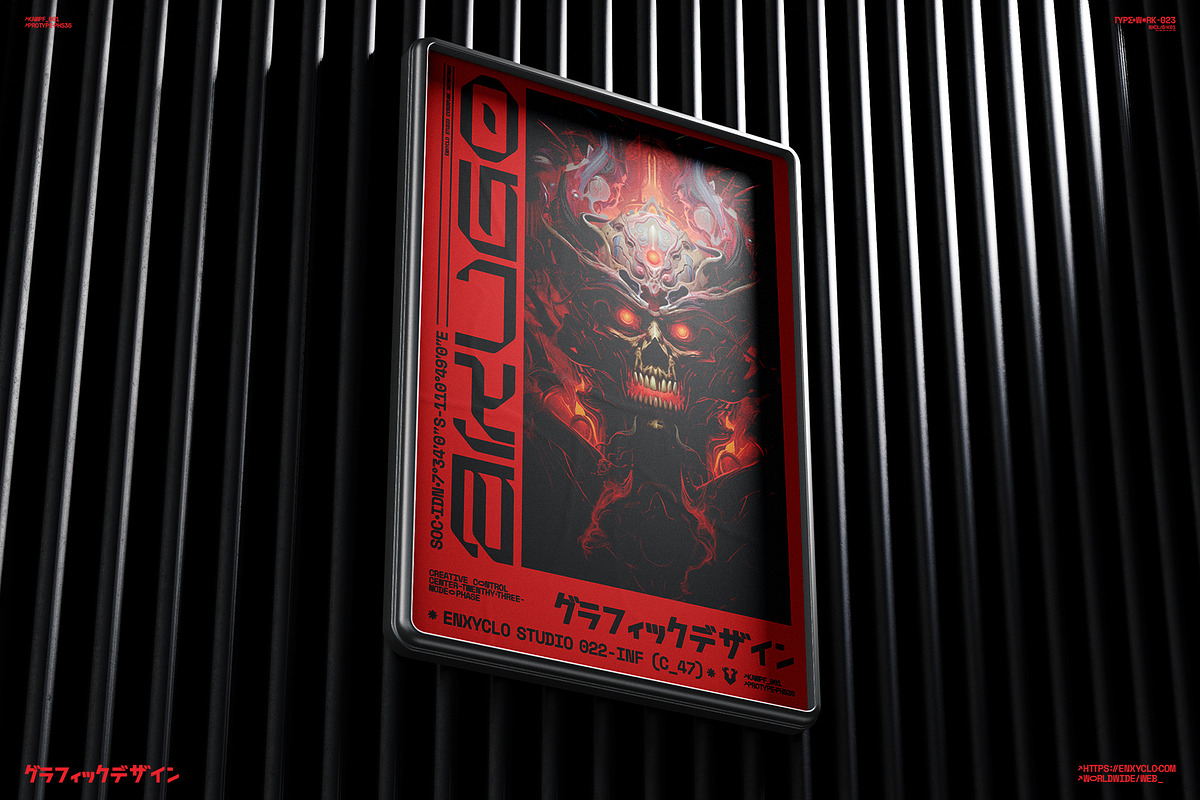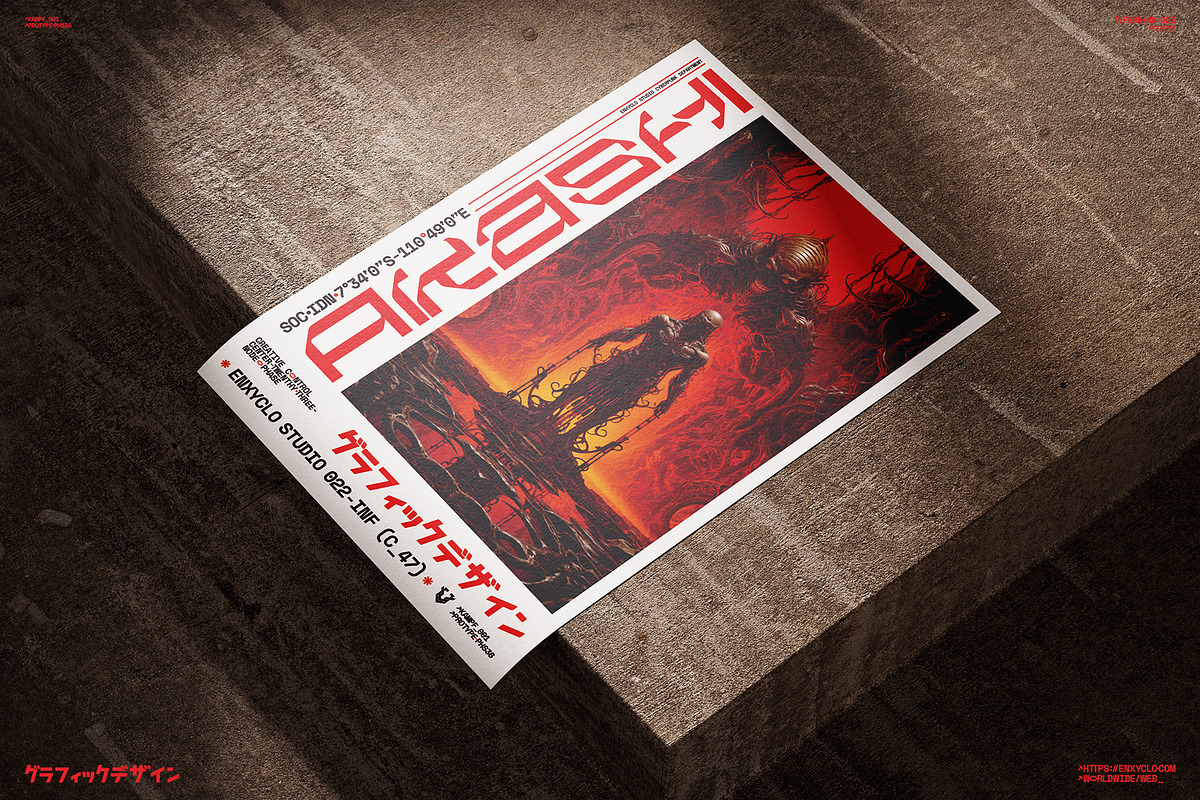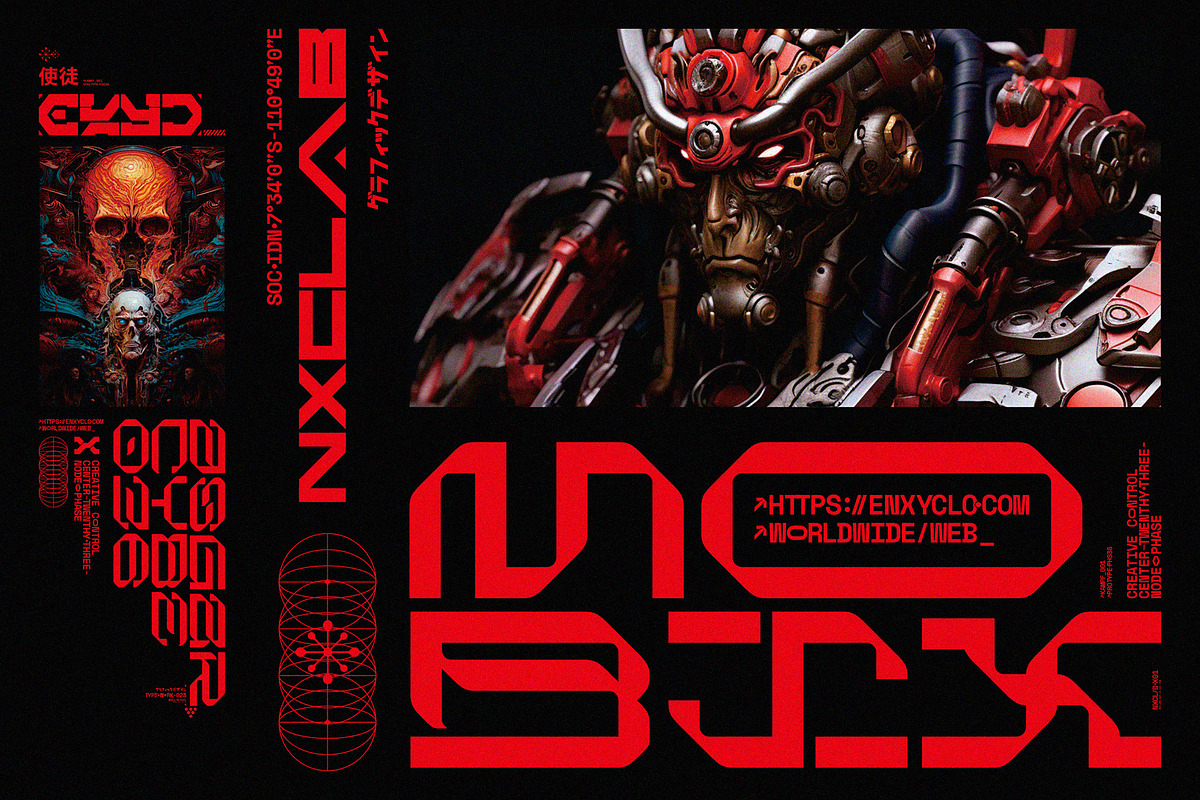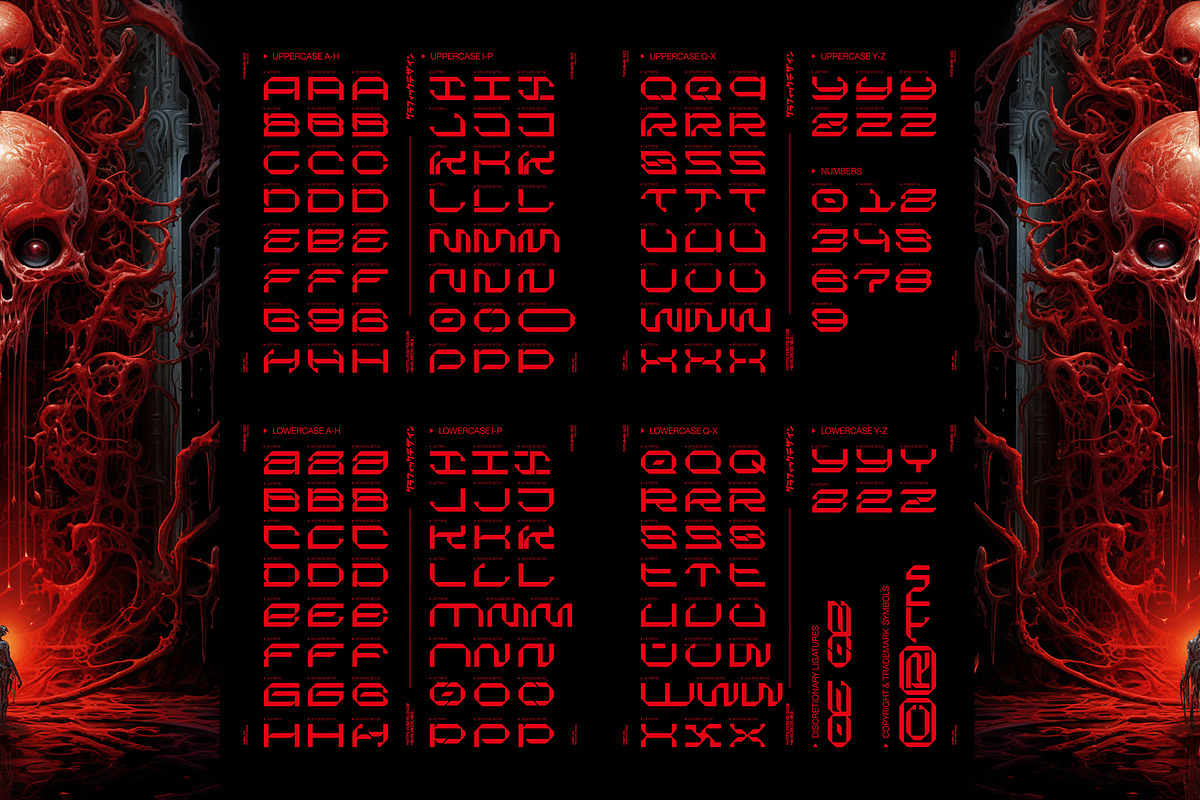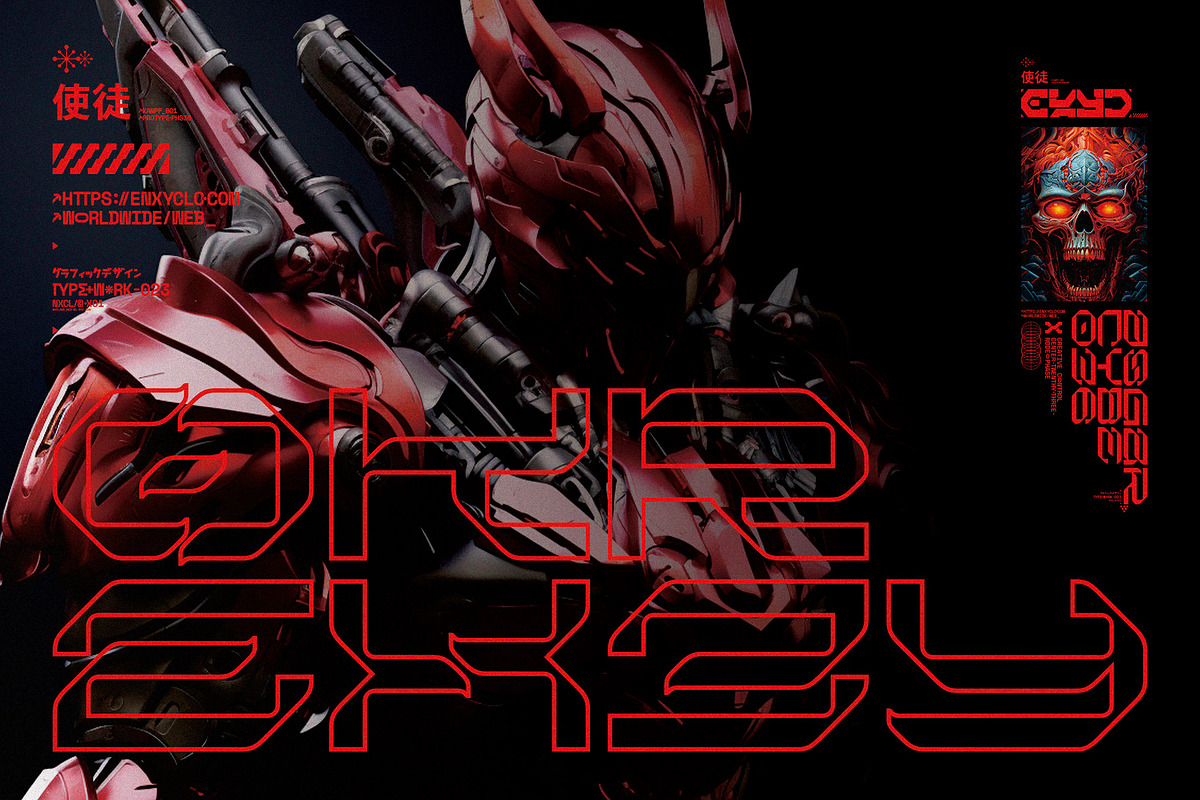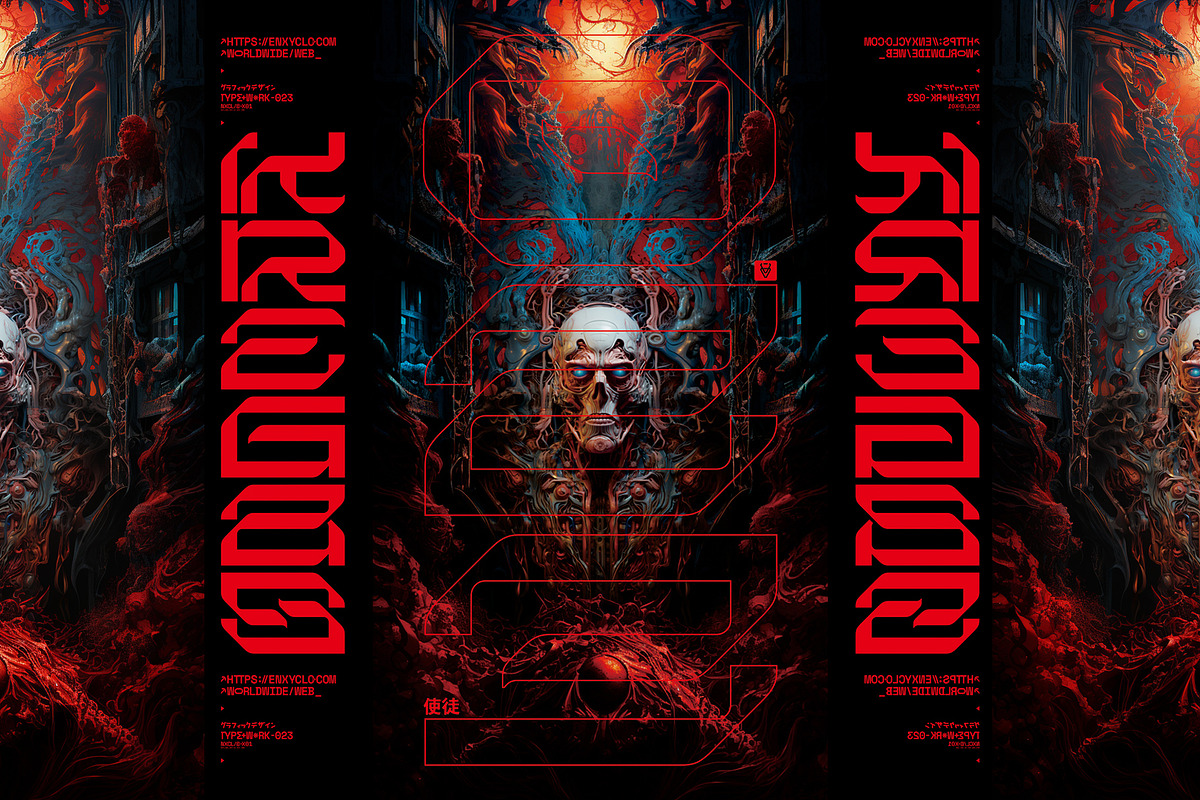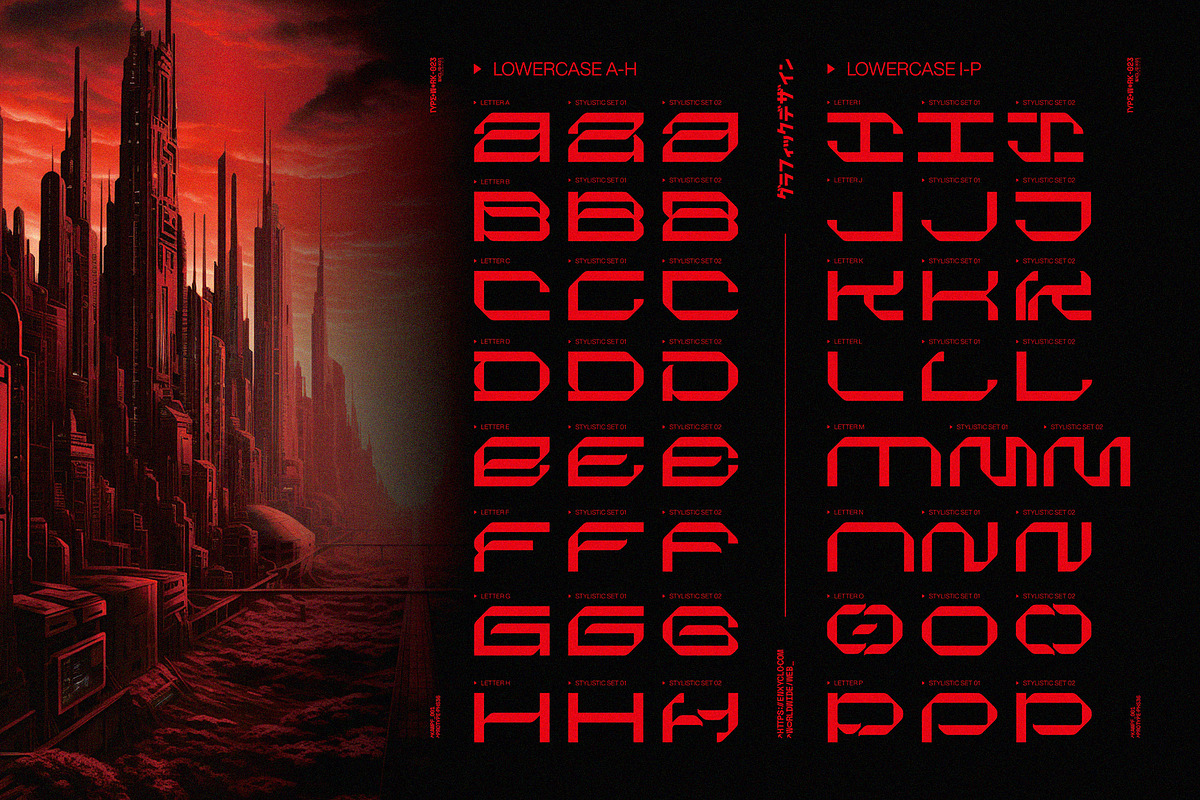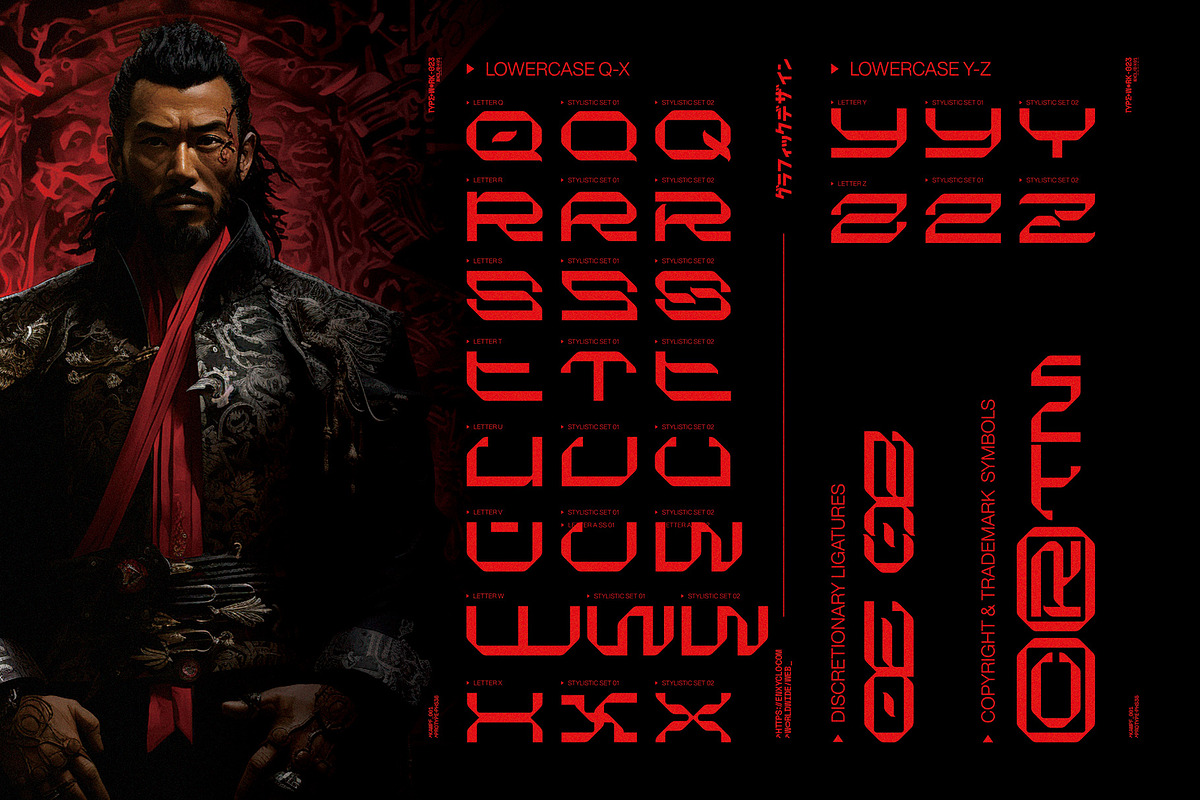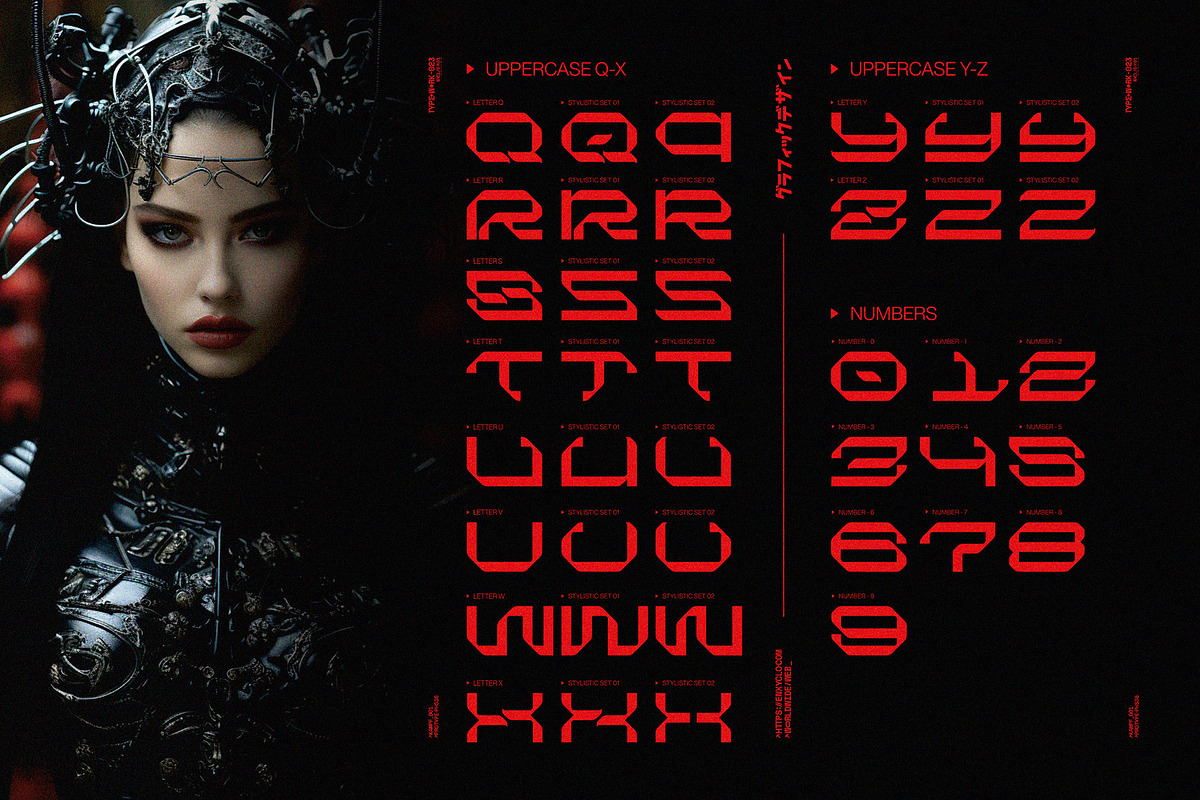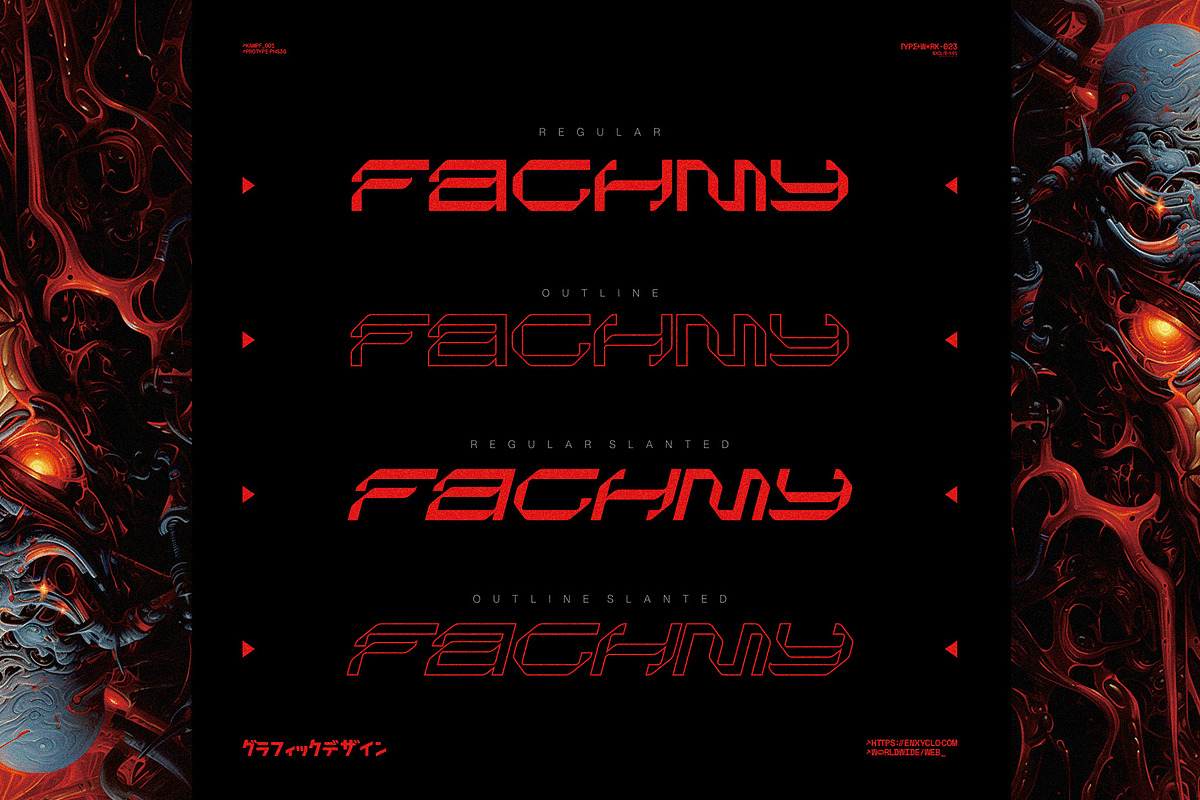
NCL KREGAS - Cyberpunk Futuristic
NCL KREGAS is not your ordinary font; it’s a cyberpunk futuristic techno mecha font with 4 styles (Regular, Slanted, Outline, Outline Slanted) that takes your creativity to the next level. Its futuristic aesthetics bring a whole new dimension to your designs, making them stand out. Whether you’re working on a website, poster, logo, or any other project, this font adds that extra touch of innovation and sophistication.
Cyberpunk–a genre that started in science fiction and has left its indelible mark on various aspects of pop culture, including design. The textures of Cyberpunk are hard to ignore. Its intrinsic appeal lies in the paradoxical blend of the advanced and the old-fashioned, the bright and the brooding, the hopeful and the despairing. And one way this vibe gets communicated powerfully is through this font–the heroes of visual communication if you will.
Whether you’re a graphic designer working on a futuristic project, a film-maker creating titles for your next sci-fi epic, or simply a fan of Cyberpunk aesthetics, this font will serve as your guide, illuminating your path in the shadowy streets of this unique design language.
Using this beautiful futuristic font makes your project an attention-grabbing masterpiece. It can instantly captivate your audience and leave a lasting impression. It’s the perfect choice for those who dare to be different and want to break away from the ordinary. If you’re wondering how to utilize this font best, check out the previews. They’ll give you some incredible inspiration for incorporating this font into your designs. From sleek and modern website to eye-catching posters, the possibilities are endless.
Masterfully designed to become a true favorite, this font has the potential to bring each of your creative ideas to the highest level! It was purposely crafted to be used in large point sizes, although it doesn’t lose its magic in small point sizes. This font will be an incredible asset to your fonts’ library, as it has the potential to elevate any creation. With this beautiful font, absolutely you can make your project stand out from the rest. Let your imagination run wild as you envision the impact this great typeface can have on your project.
- 4 Styles: Regular, Slanted, Outline, Outline Slanted
- Contains 440 Glyphs for Each Style and 1760 Glyphs for Total
- Numeral, Punctuation & Symbols
- Stylistic Set 1 & Stylistic Set 2